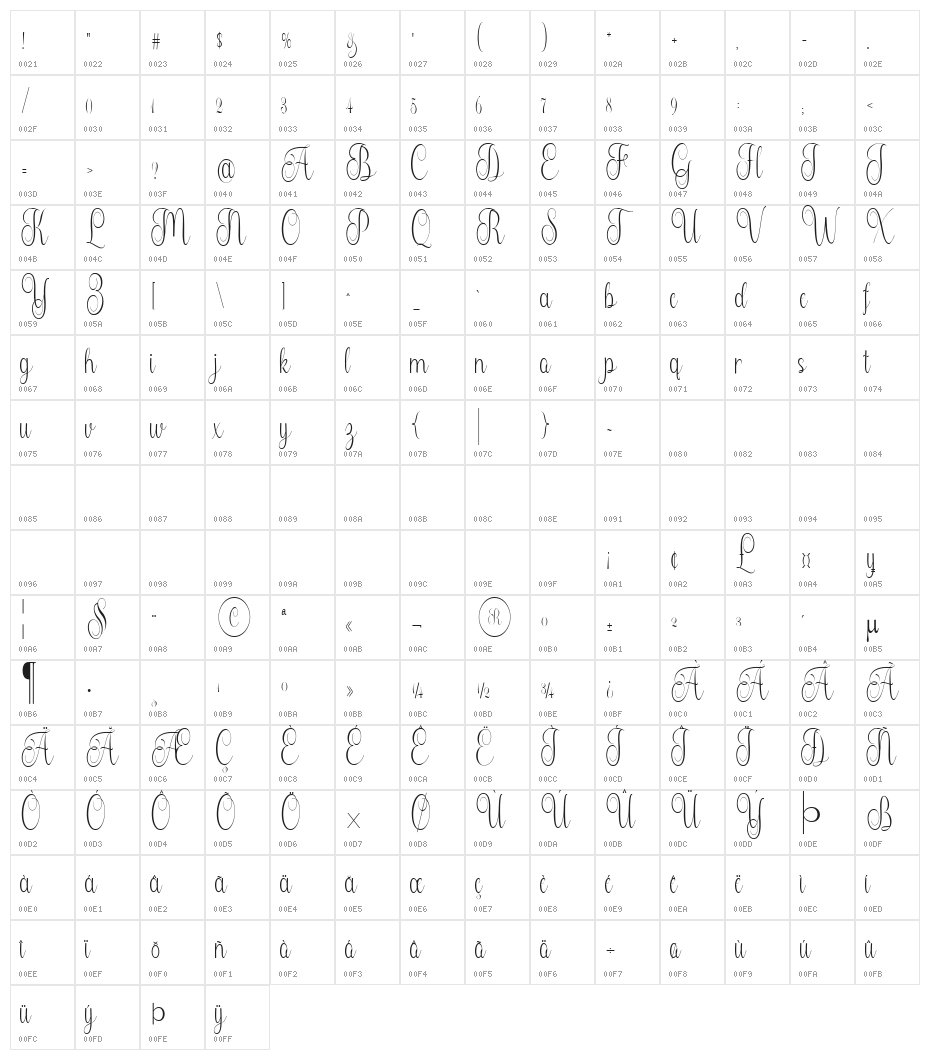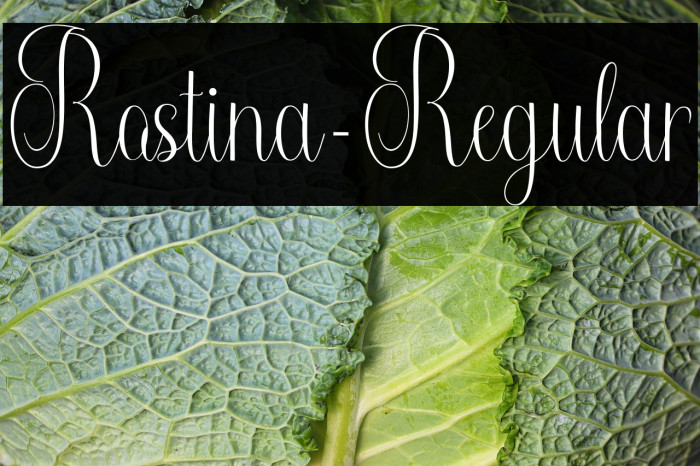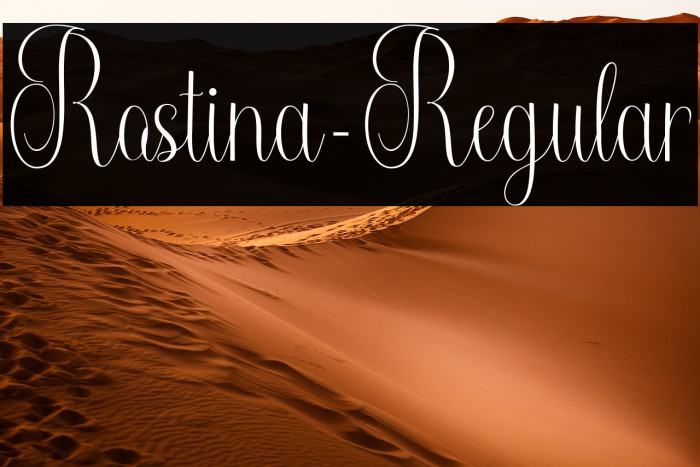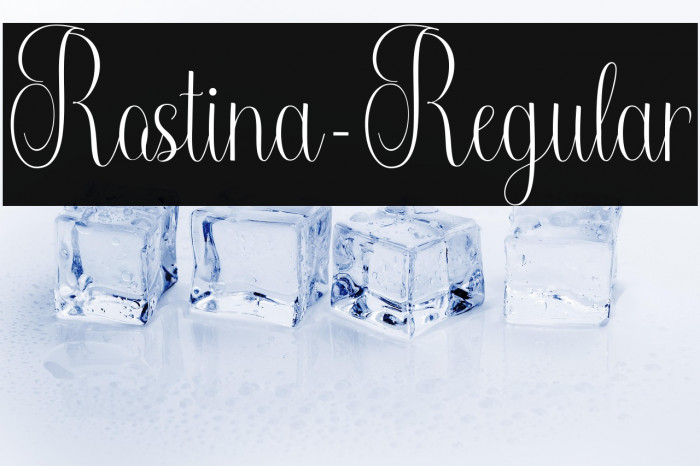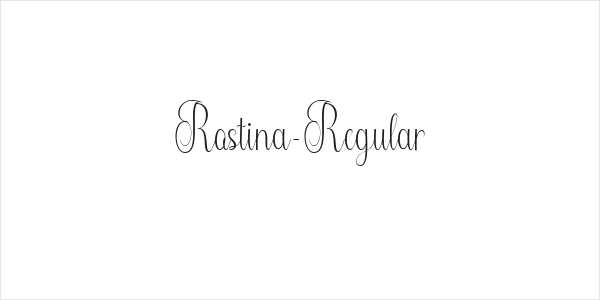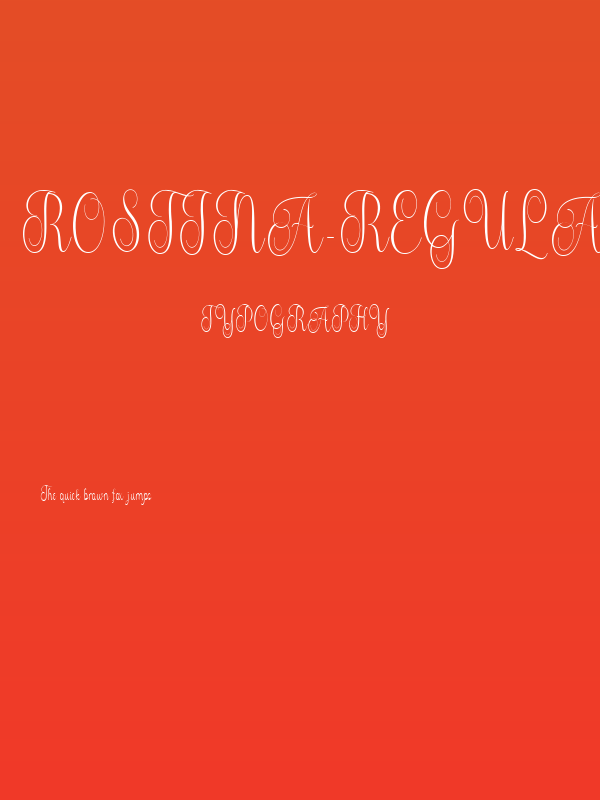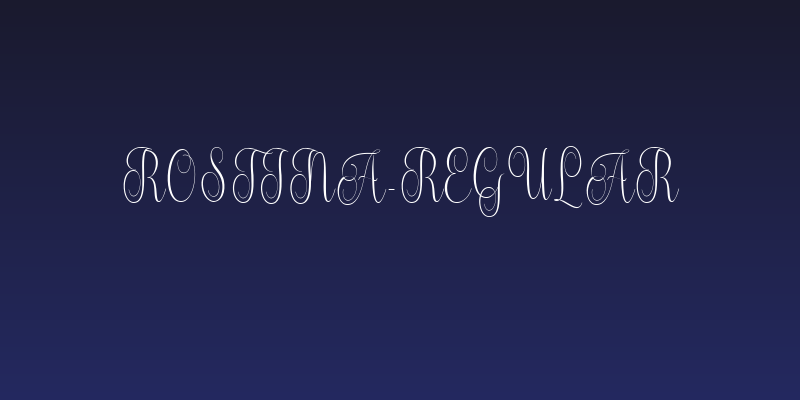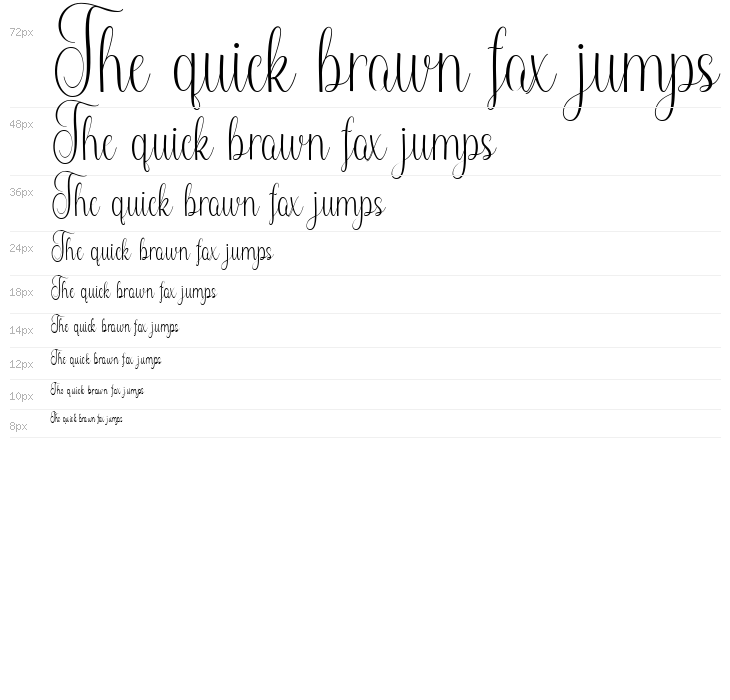
Rostina-Regular Font
Rostina-Regular Description
This elegant script font features a delicate and flowing design, characterized by its intricate loops and swirls. The uppercase letters are particularly ornate, with each character exhibiting a unique flourish that adds a sense of sophistication and grace. The lowercase letters maintain a more streamlined appearance, yet still retain a touch of the decorative style seen in the uppercase. The numerals and special characters complement the overall aesthetic, offering a cohesive look across all glyphs. This font is ideal for projects that require a touch of elegance and refinement.
| Overall Style | Elegant, Decorative |
| Use Case | Headlines, Invitations, Branding |
| Proposed Projects | Ideal for wedding invitations, luxury branding, elegant stationery, and decorative headlines. |